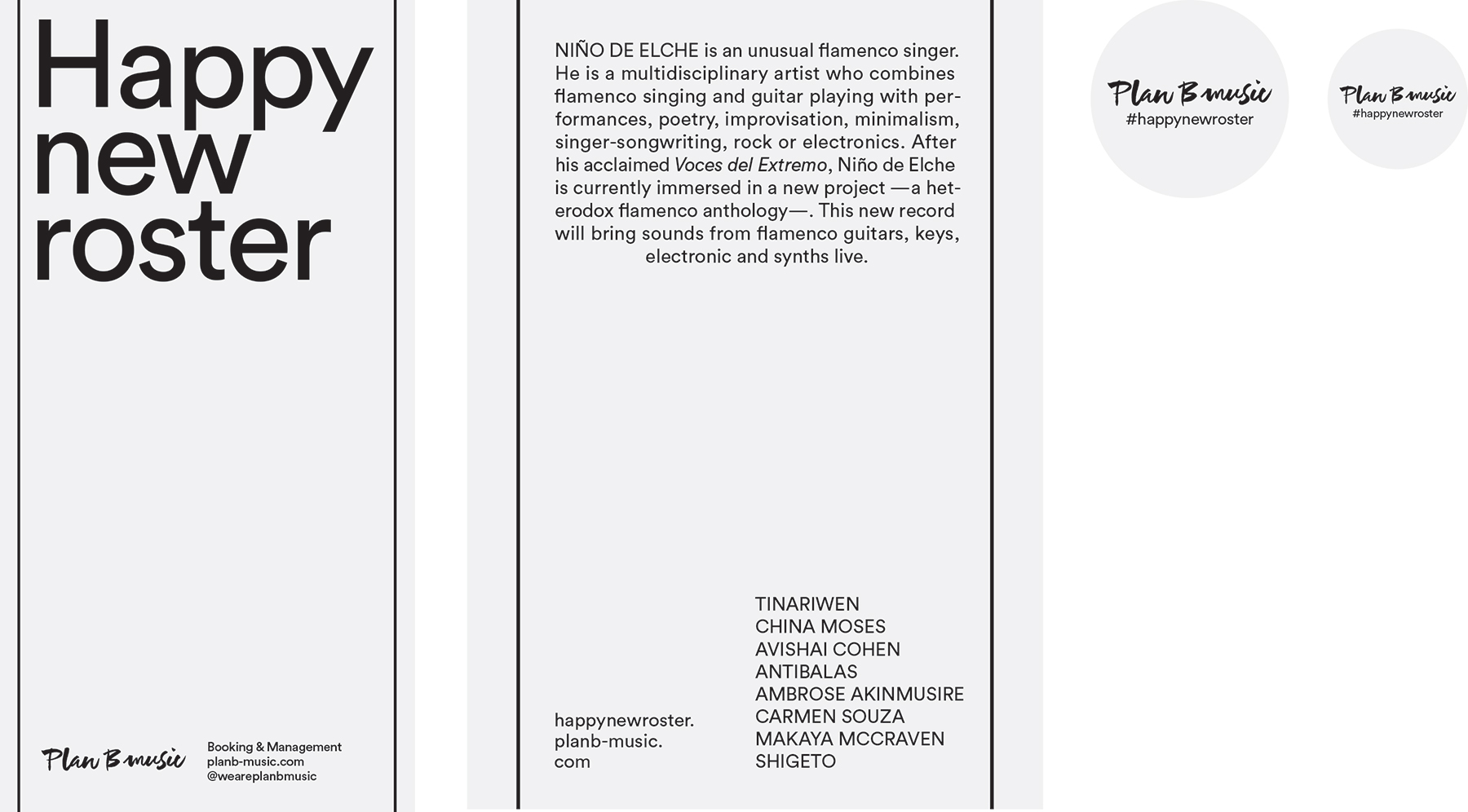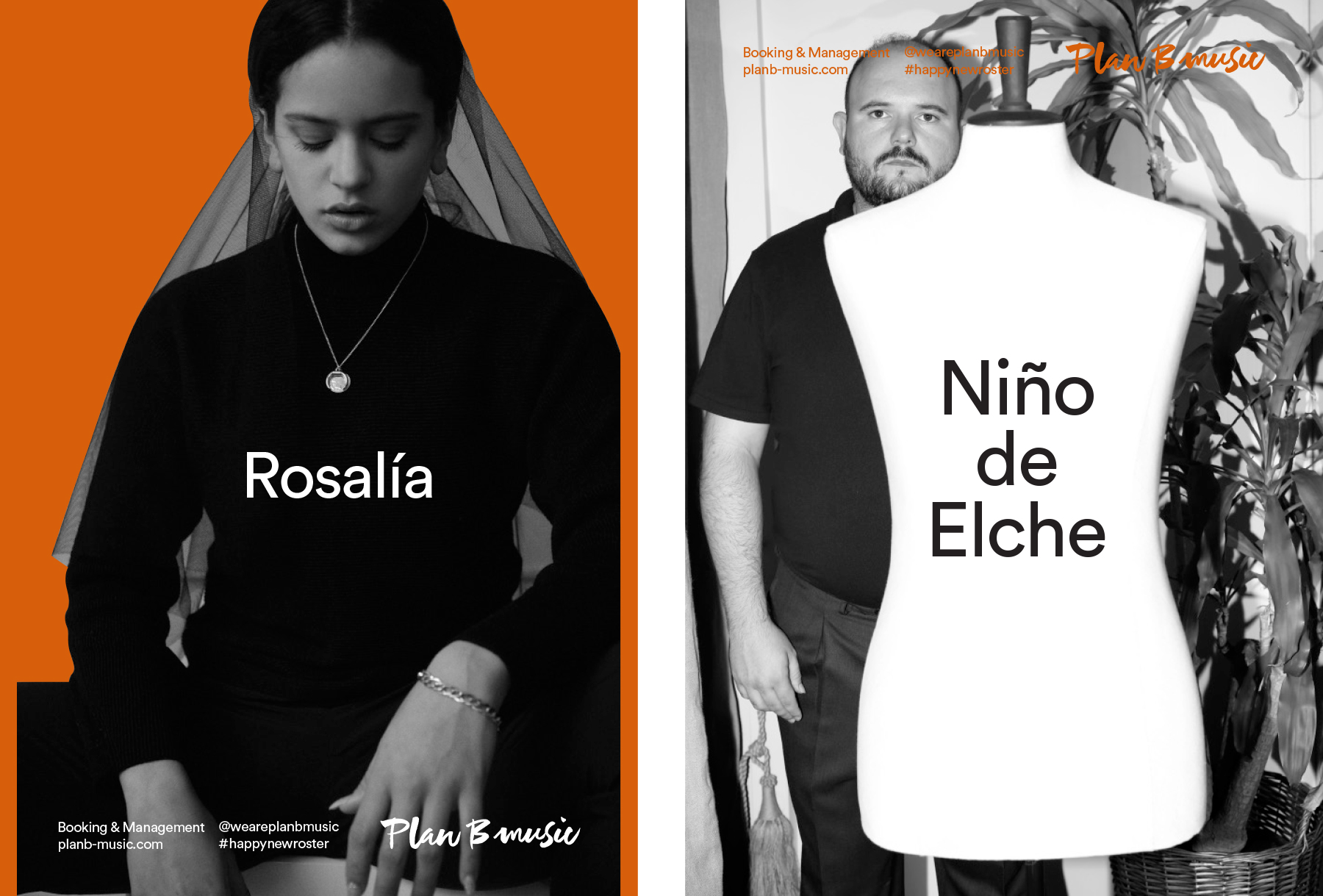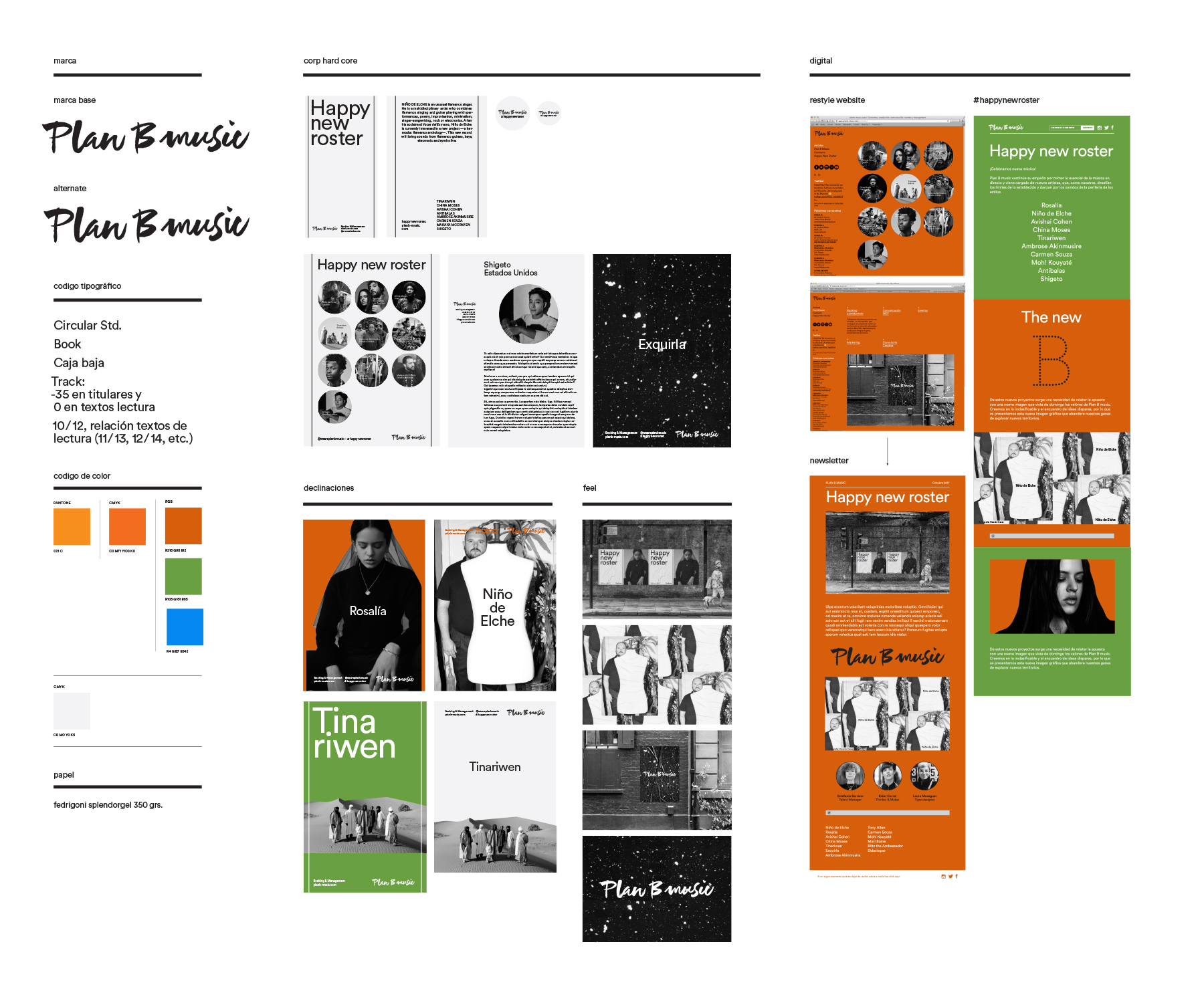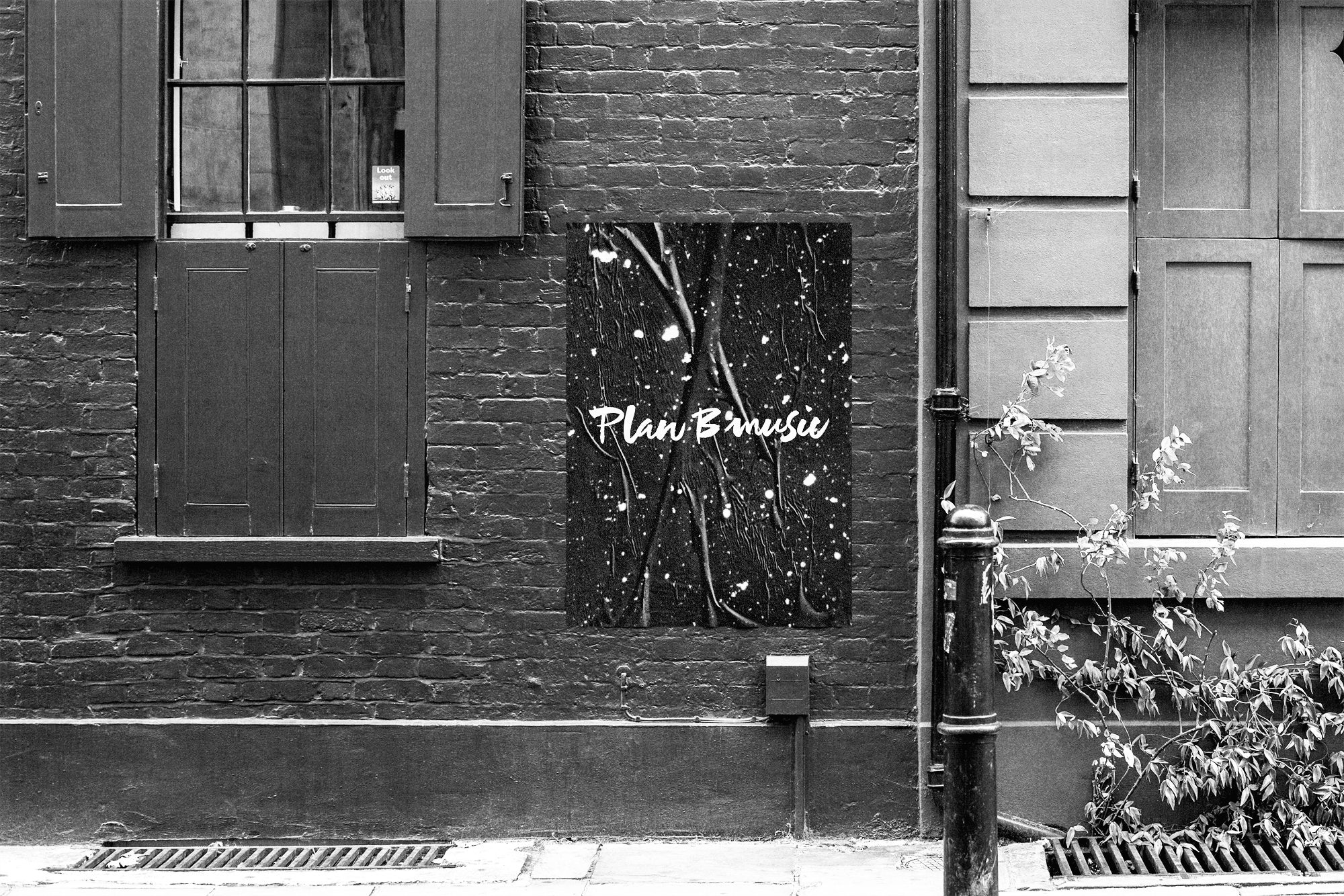
Wordmark design for the rebranding of Plan B music
The Plan B music project consisted of a brand strategy designed as a teamwork with the art director Eider Corral, and the Plan B music manager, Stephanie Serrano. This change of image is a meeting of different visions and creativities with shared ideas: telling the invisible, exploring the limits and developing the detail. The restyling of the visual identity of Plan B music is a collaborative project that goes beyond our screens and some bytes.
After many brainstormings and sketching we decided that the logotype had to be handwritten, not in a formal way, but showing some of the attributes of the brand itself, like a hybrid, modern, furious, expressive… so I took my calligraphic tools but also brushes and started writing and sketching, until I got this result.